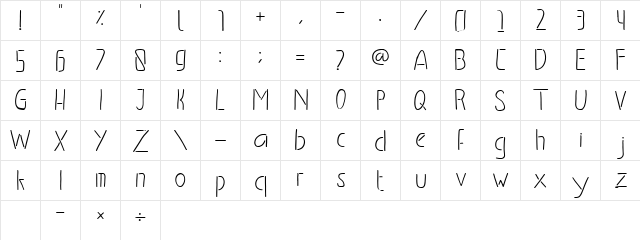
Neonidas Regular
| Designer | HandletterYean |
Design Context for Neonidas Typeface
Neonidas channels digital-age aesthetics through its sharp, structured letterforms — ideal for brands that want to signal innovation.